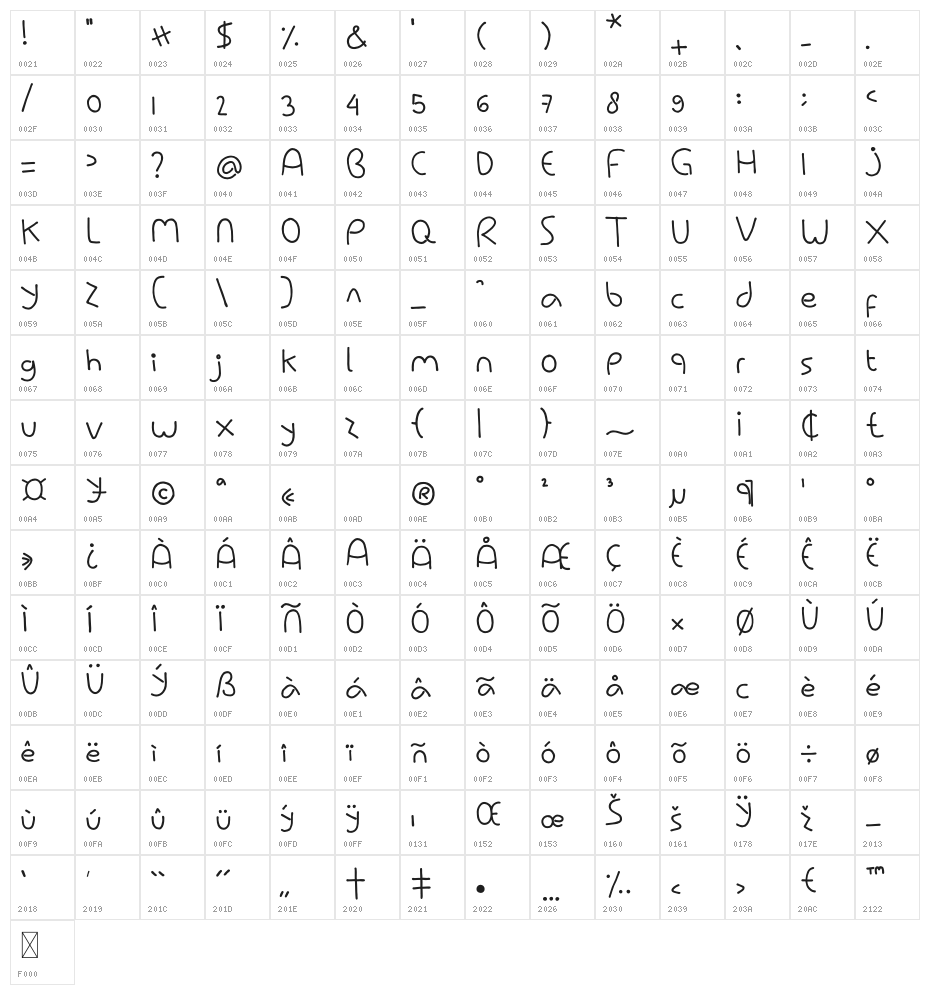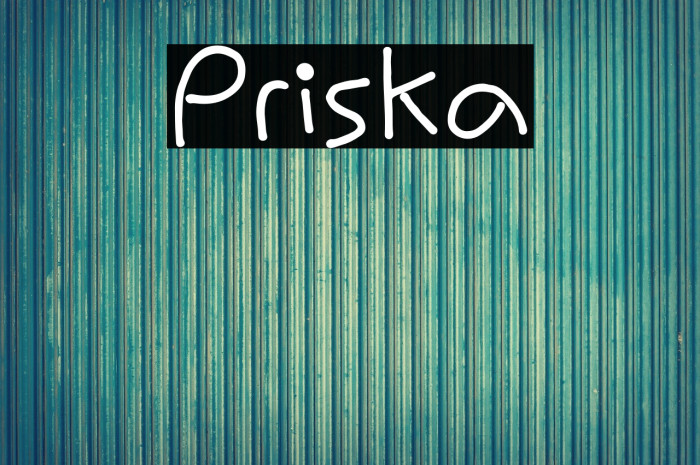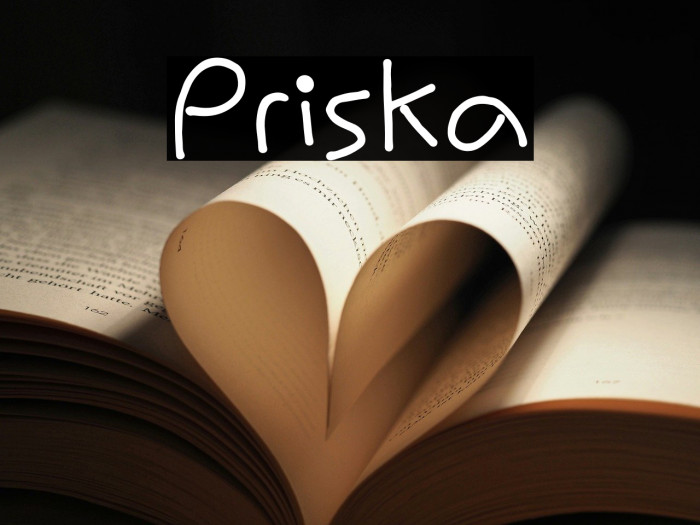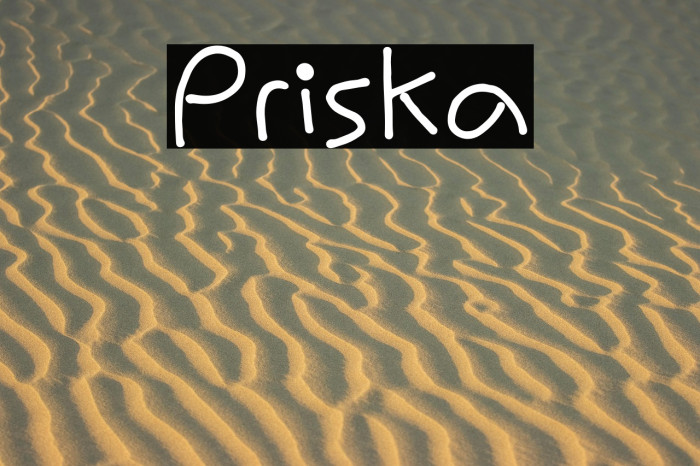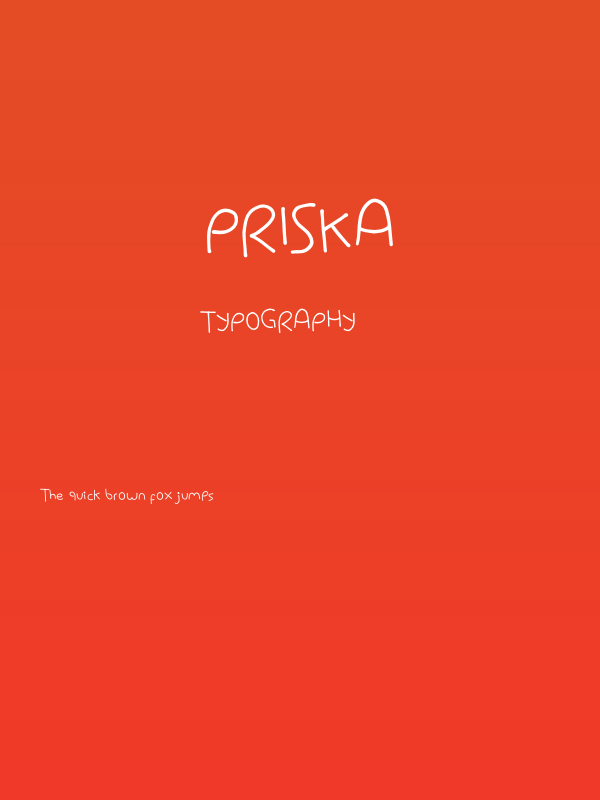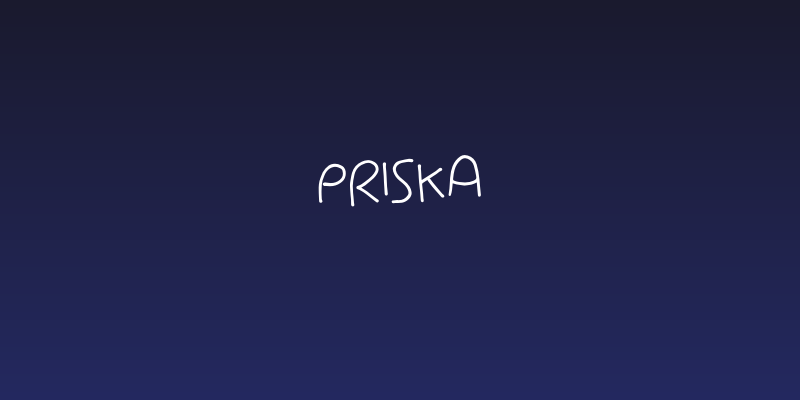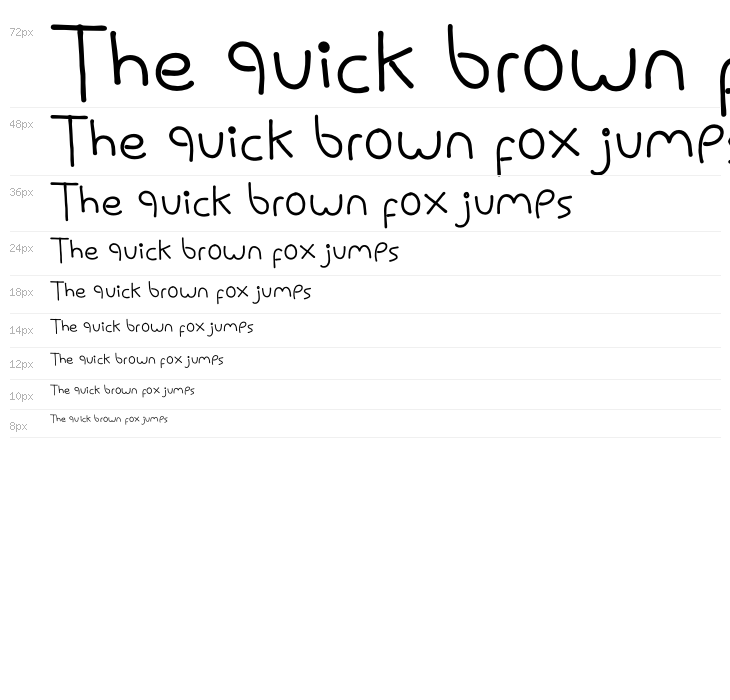
Priska Font
Priska Description
This playful and whimsical font features rounded, irregular strokes that give it a hand-drawn appearance. The characters are slightly uneven, adding to its charm and informal style. The uppercase and lowercase letters maintain a consistent flow, with a slight tilt that enhances its casual feel. The numerals and special characters follow the same design ethos, ensuring a cohesive look across all glyphs. This font is ideal for projects that require a touch of personality and creativity, such as children's books, playful branding, or casual invitations.
| Overall Style | Whimsical |
| Proposed Projects | Children's books, playful branding, casual invitations, creative posters. |